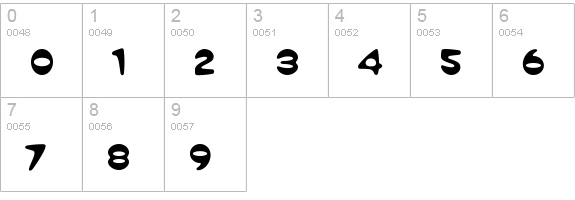
Amorpheus font is a stunning and versatile typeface that effortlessly blends elegance with modernity. Its unique design features fluid lines and a sophisticated yet playful style that is sure to make any text stand out. With its wide range of weights and styles, Amorpheus font is perfect for a variety of design projects, from branding to editorial layouts. Best of all, Amorpheus font is completely free to use and is available for download at FontsMarket.com. Whether you're a seasoned designer looking to add a fresh touch to your work or a newbie just starting out, this font is a must-have in your collection. Don't miss out on this fantastic opportunity to enhance your designs with the beauty and versatility of Amorpheus font. Download it now and let your creativity soar!